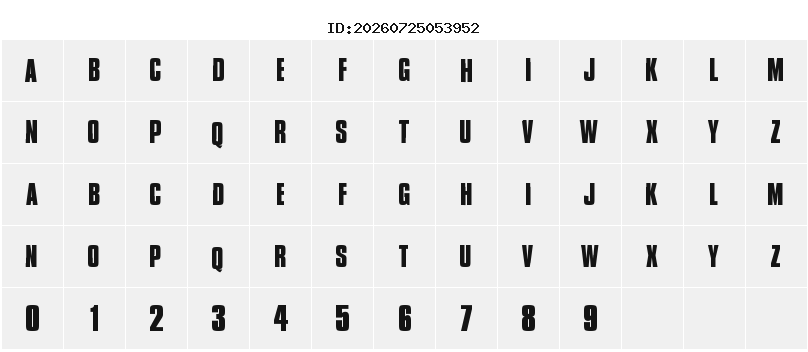
About Godzilla MovieFont.ttf
Godzilla MovieFont.ttf is a modern, elegant sans-serif font designed for ultimate readability and visual harmony. Perfect for branding, headlines, web design, and print materials.